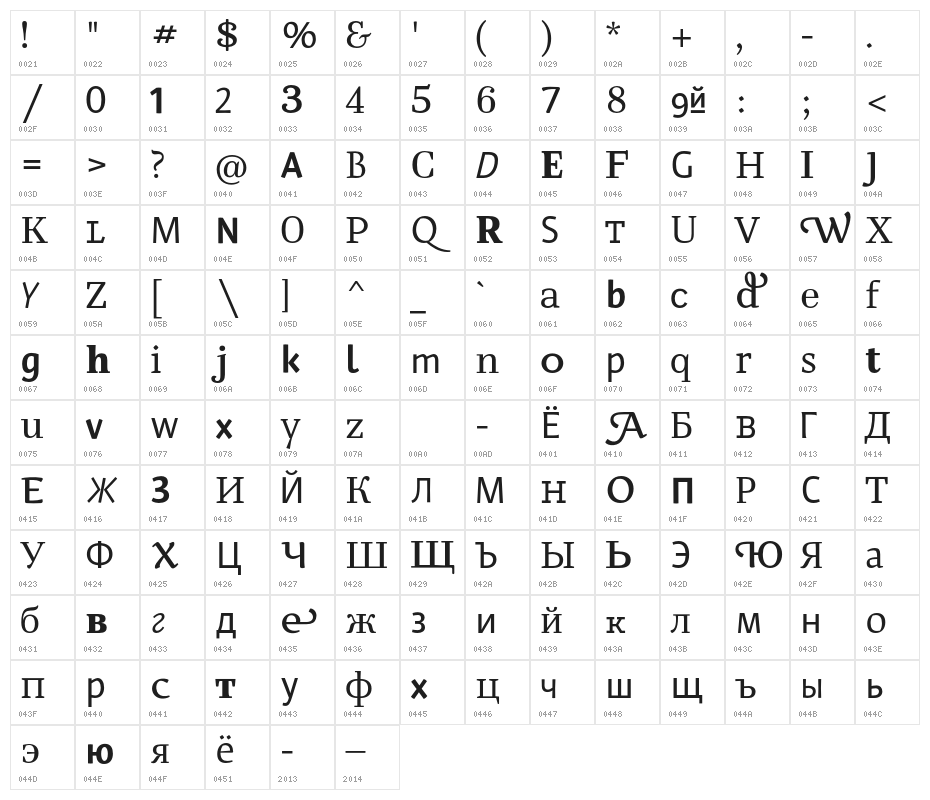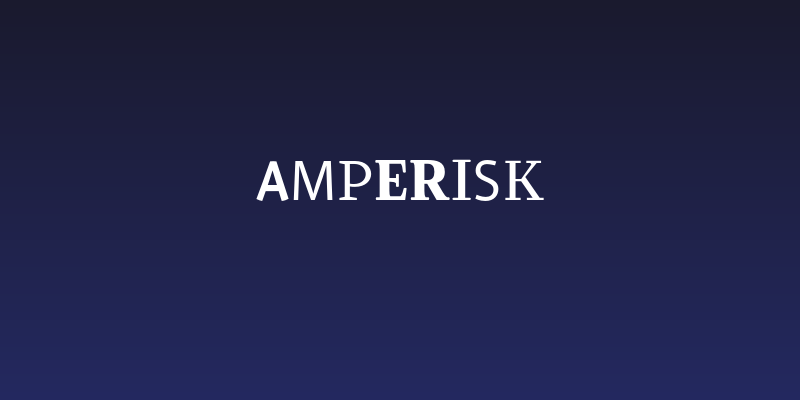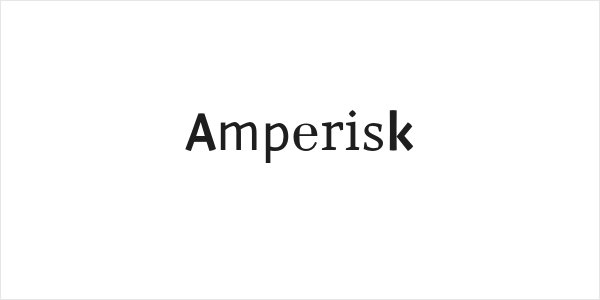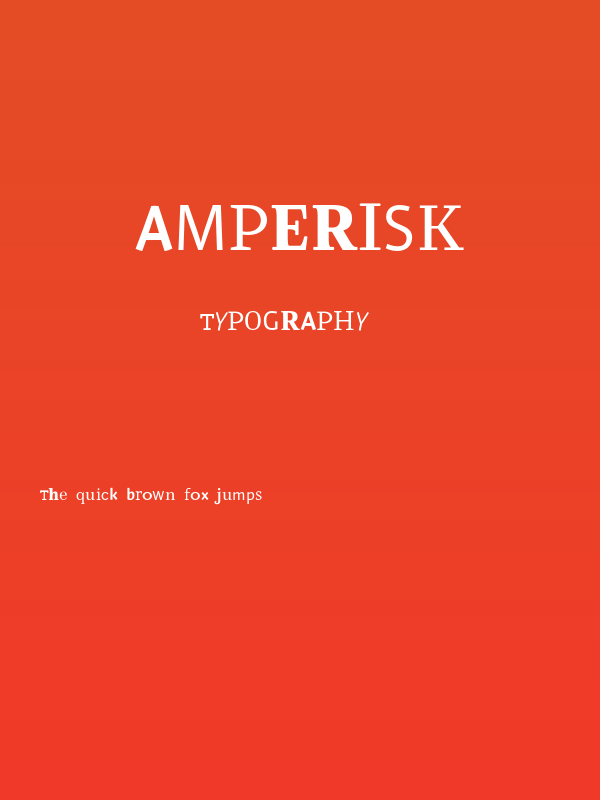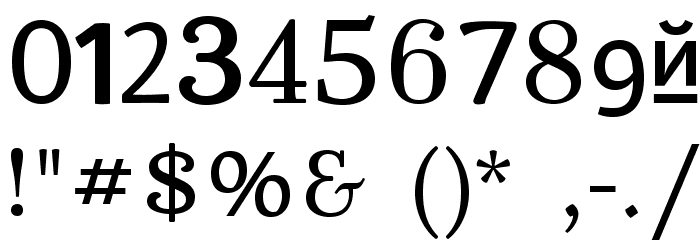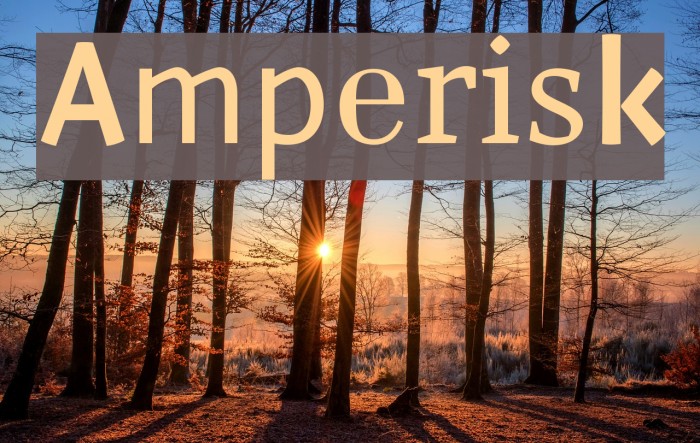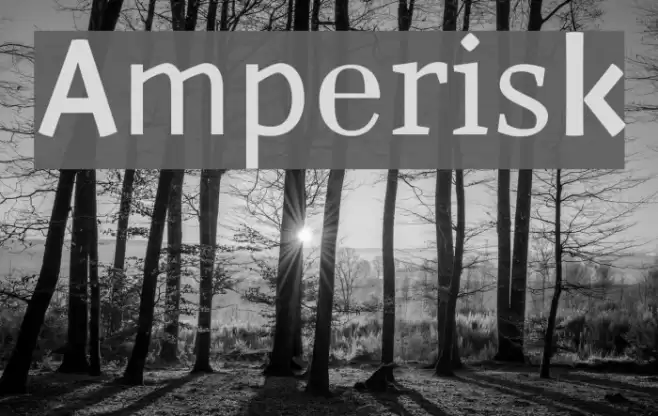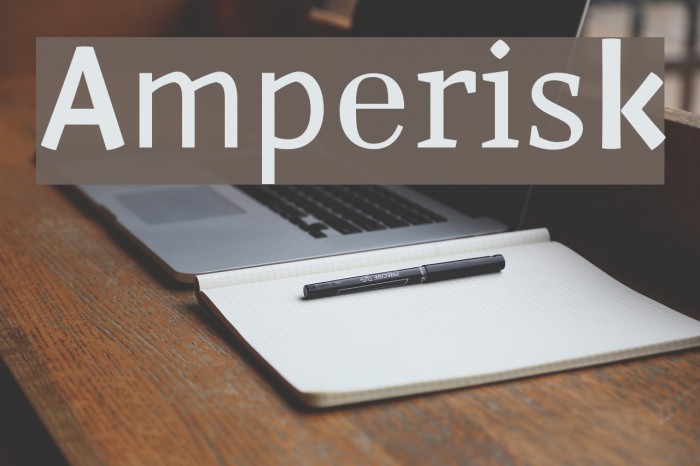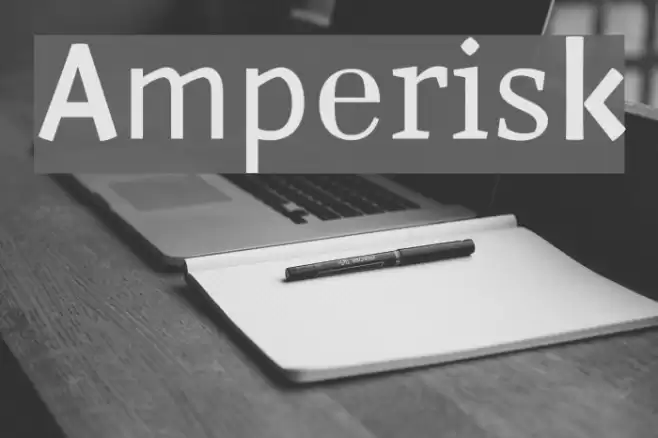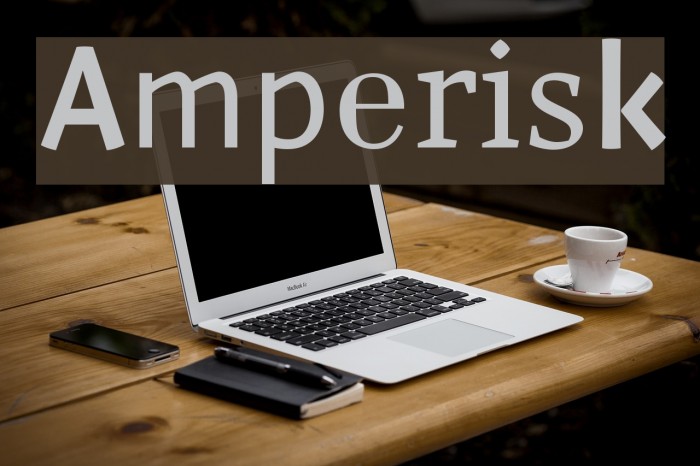
Amperisk Font
Amperisk Description
This font features a distinctive blend of classic serif elements with a modern twist. The uppercase letters are bold and commanding, with unique serifs that add a touch of elegance. The lowercase letters maintain a consistent style, with some characters like 'g' and 't' showcasing creative flair. The numerals are clear and easily readable, while the special characters are well-integrated, maintaining the overall aesthetic. This font balances traditional serif characteristics with contemporary design, making it versatile for various uses.
| Use Case | Headlines, Logos, Editorial design |
| Proposed Projects | Ideal for branding projects, editorial design, and sophisticated print materials. |